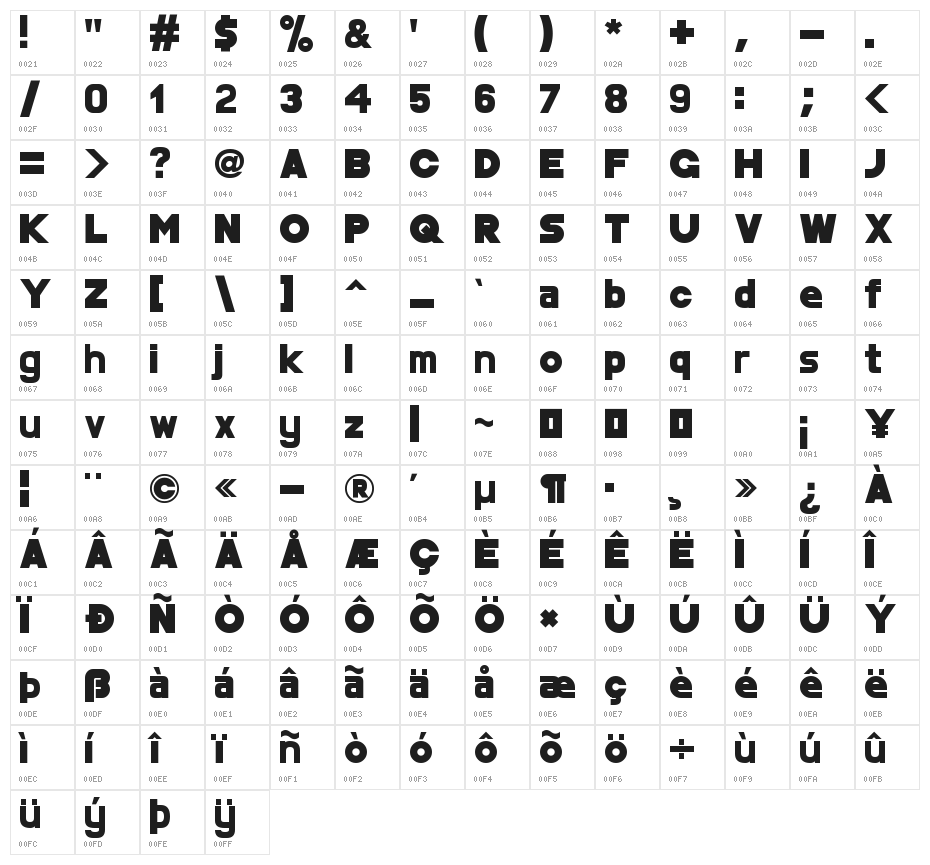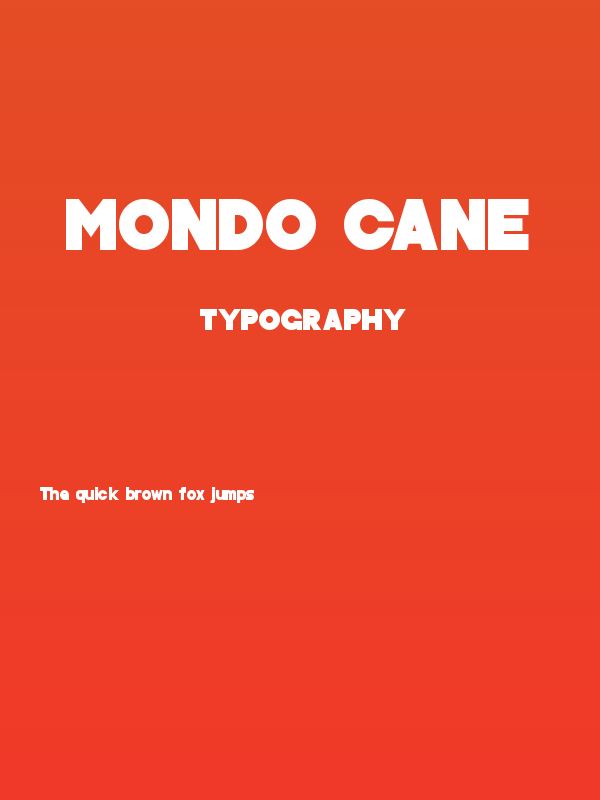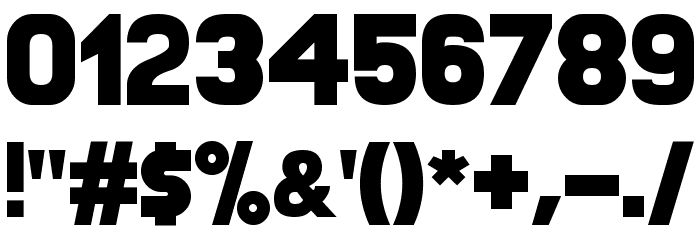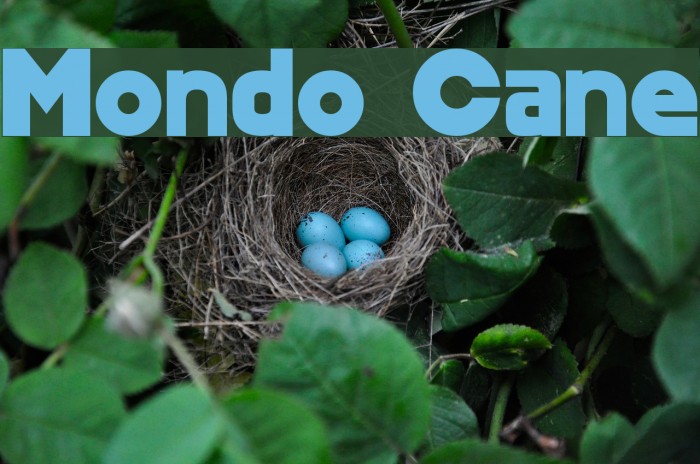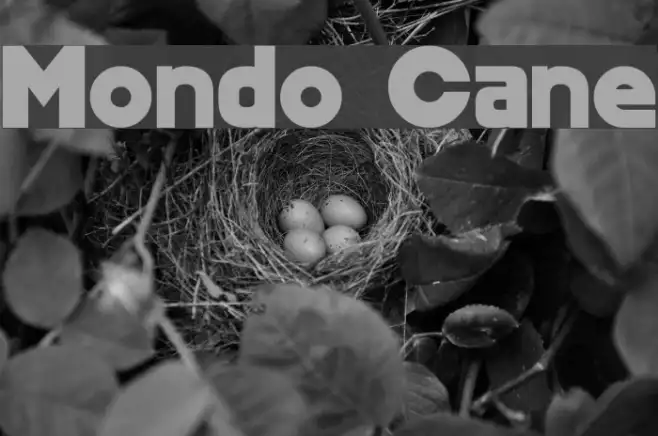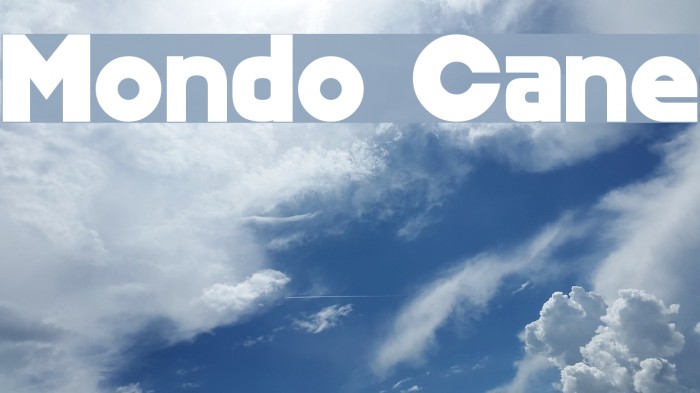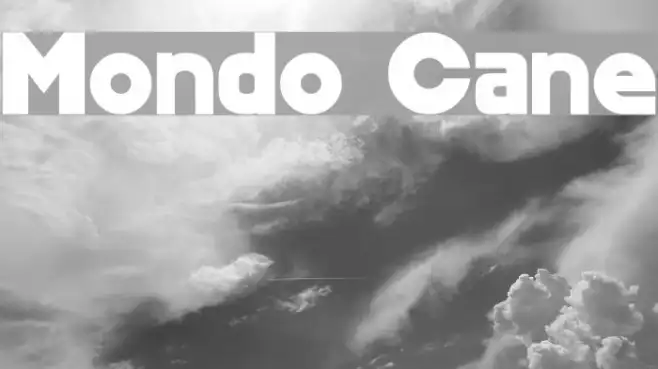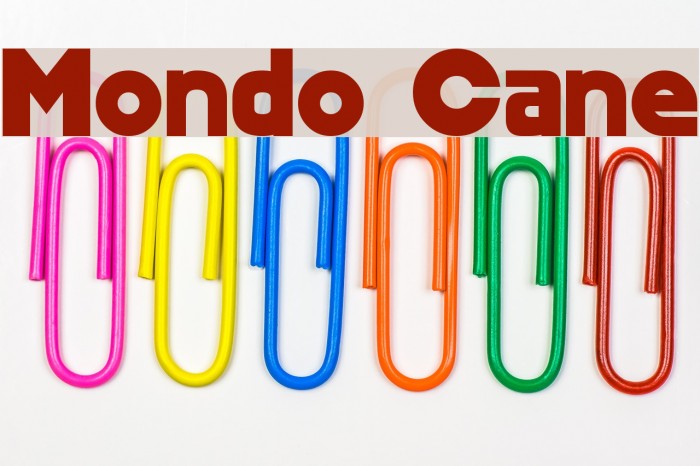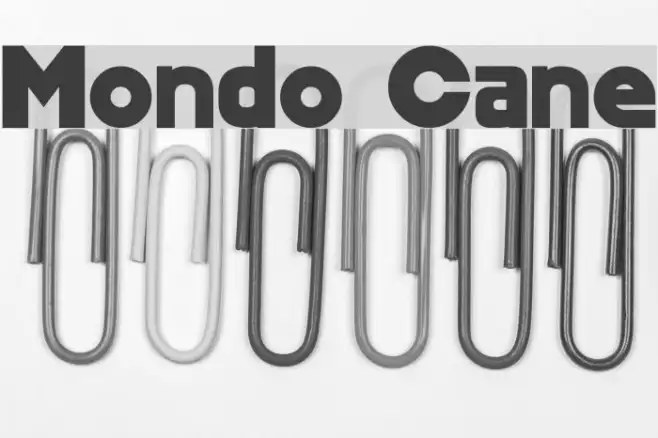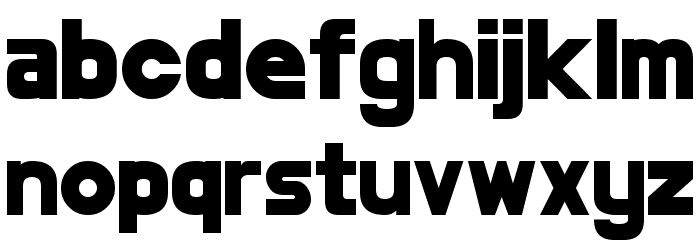
Mondo Cane Font
Mondo Cane Description
This font features bold, geometric letterforms with a strong presence. The characters are uniformly thick, creating a sense of stability and impact. The uppercase letters are particularly striking, with a blocky, robust appearance that commands attention. The lowercase letters maintain the same weight, ensuring consistency across text. Numbers and special characters are equally bold, making them stand out in any context. The overall design is modern and assertive, suitable for making a statement.
| Proposed Projects | Ideal for branding, posters, headlines, and any design requiring a bold statement. |